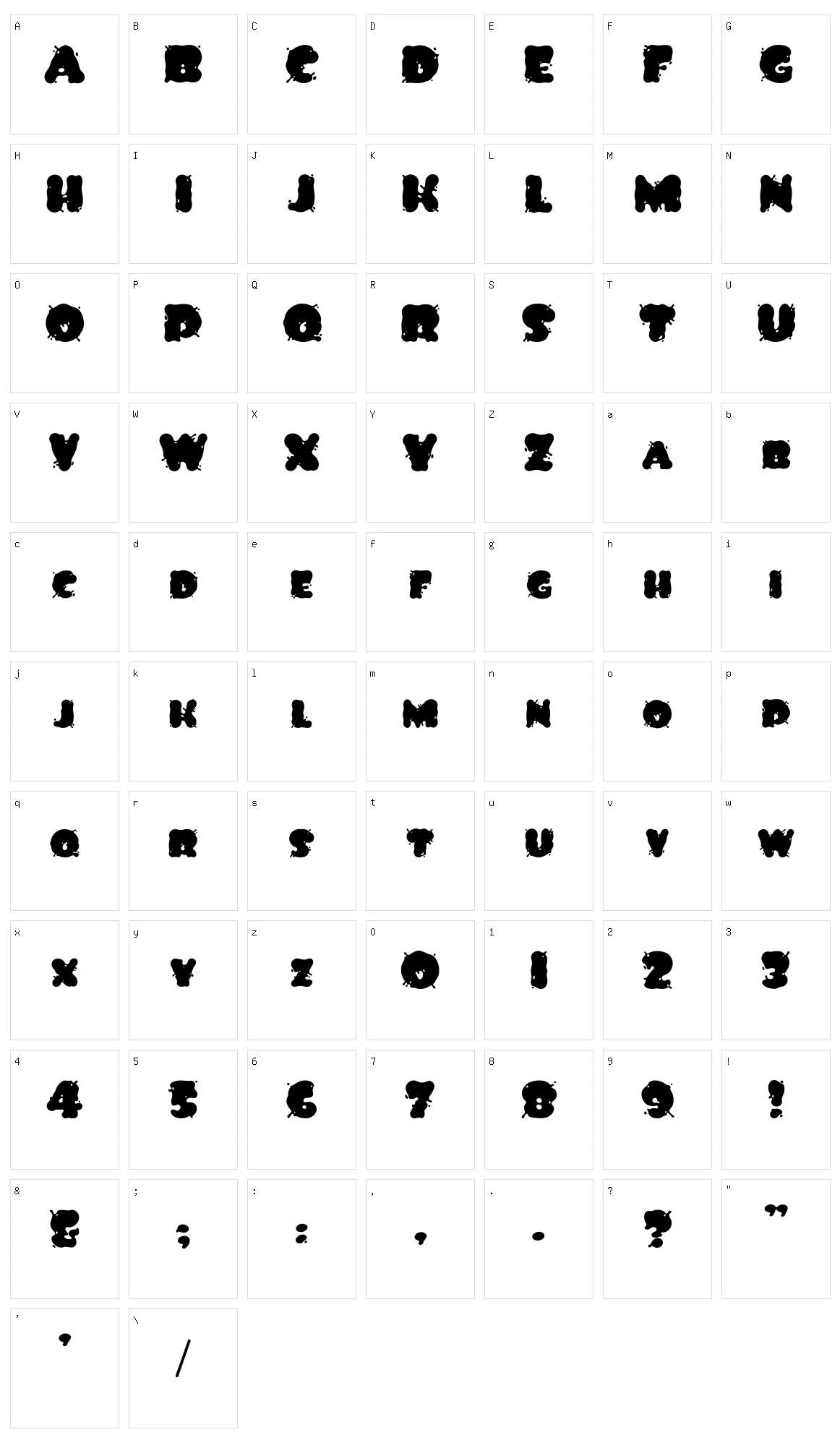
The free font Spilt Ink is carefully designed by Walter Velez, showcasing a thoughtful balance of creativity and usability and falls under the Cartoon font style. When you download the ZIP file, it contains only 31.75 KB of font files, making it lightweight and quick to download. Please review the license details below to understand permitted usage and distribution rights. If license information is not available, we recommend using this font for personal projects only or contacting the author directly for commercial usage permissions.